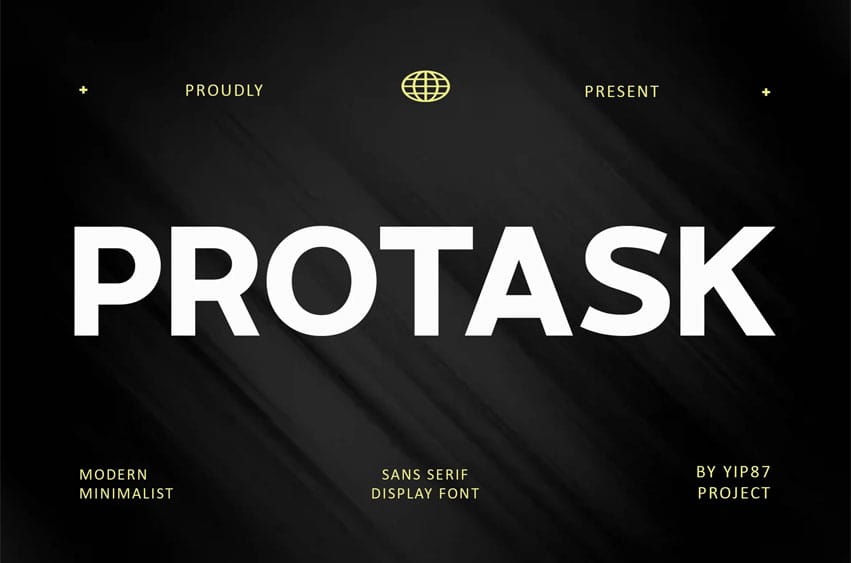
Protask Font is a Classy sans-serif font that combines bold and modernity. Its clean lines and refined structure provide a sophisticated yet contemporary feel, making it an excellent choice for projects that demand a stylish and strong look.
Protask is ideal for branding, corporate identities, editorial design, website design, product packaging, and advertising. This font is effective in posters, flyers, and banners for promotional campaigns, ensuring the message stands out with bold typography. You can also apply this font for Signage and Display, Announcements, and Merchandise Design. Protask comes with a complete set of uppercase and lowercase letters, punctuation, and numerals. Additionally, it offers extensive multilingual support, making it a versatile choice for global use. Designed with precision and an acute awareness of modern typographic trends, Protask blends form and function seamlessly.